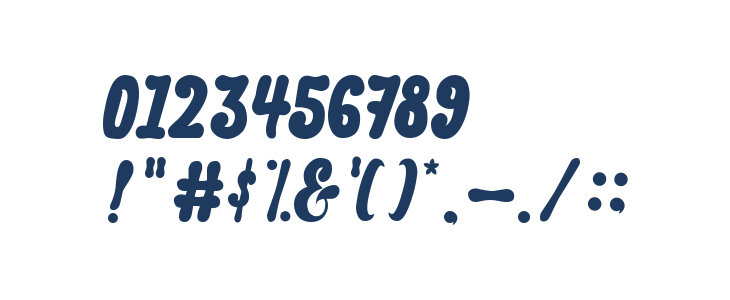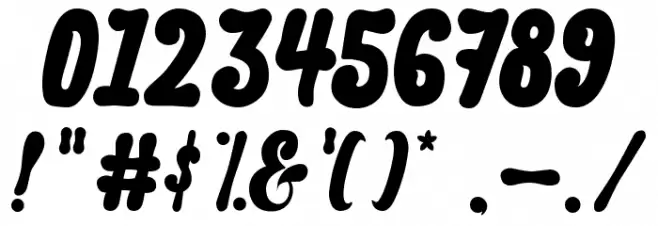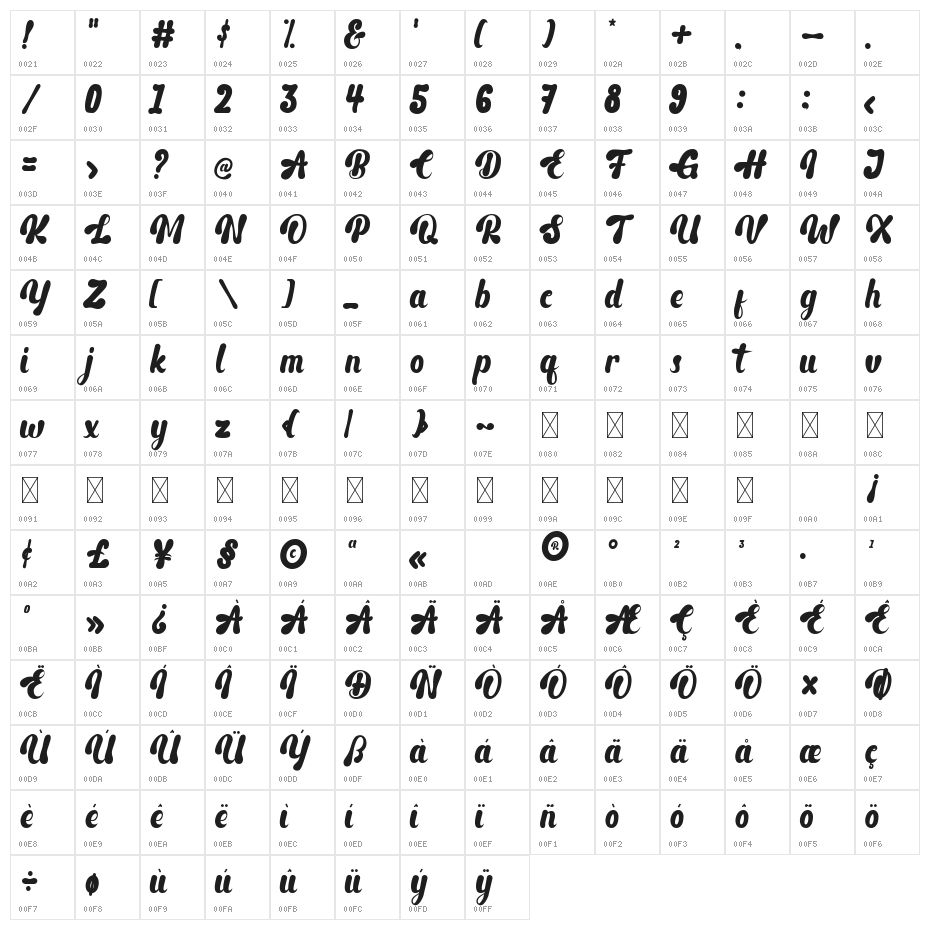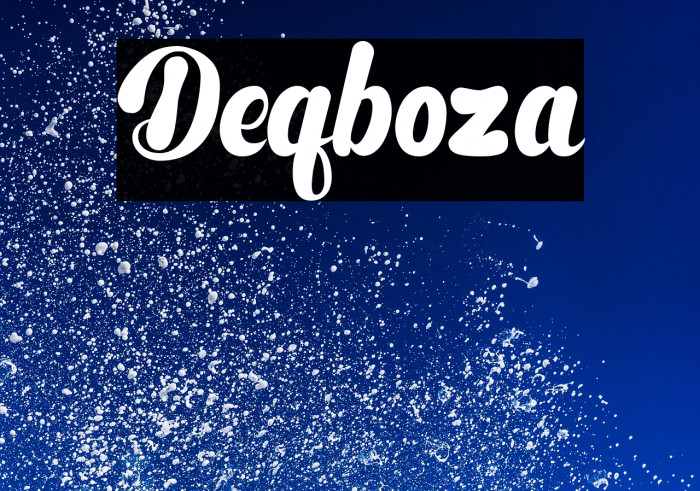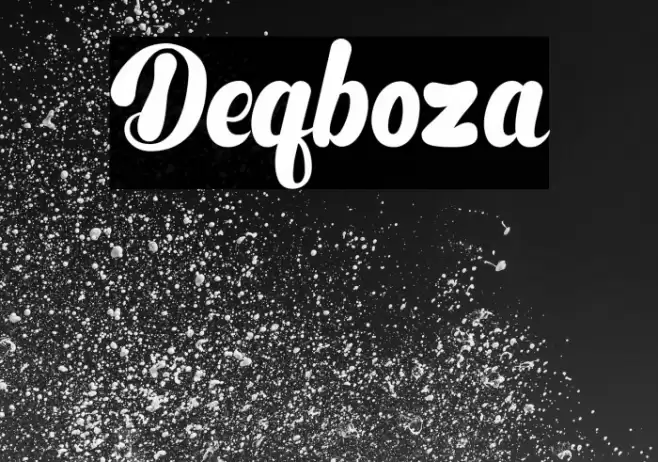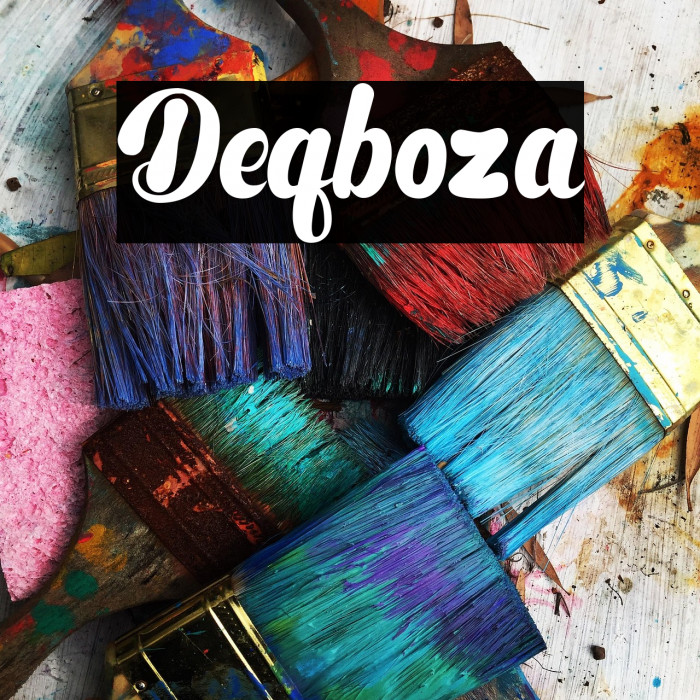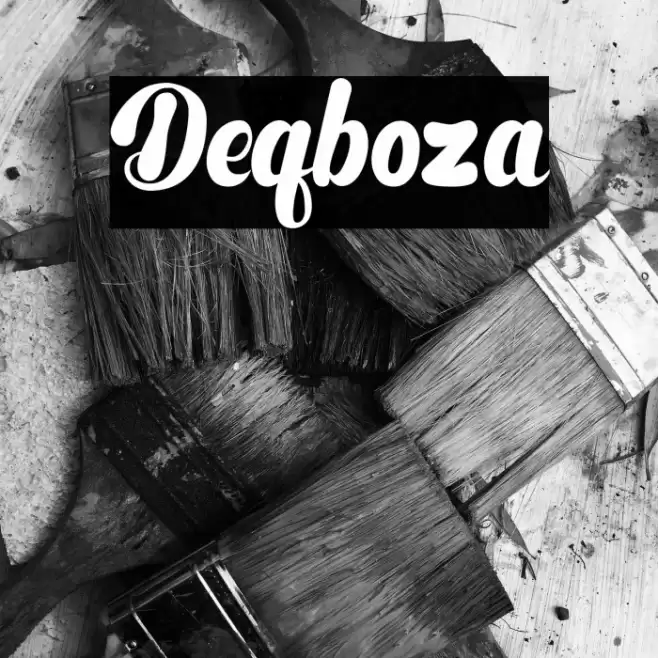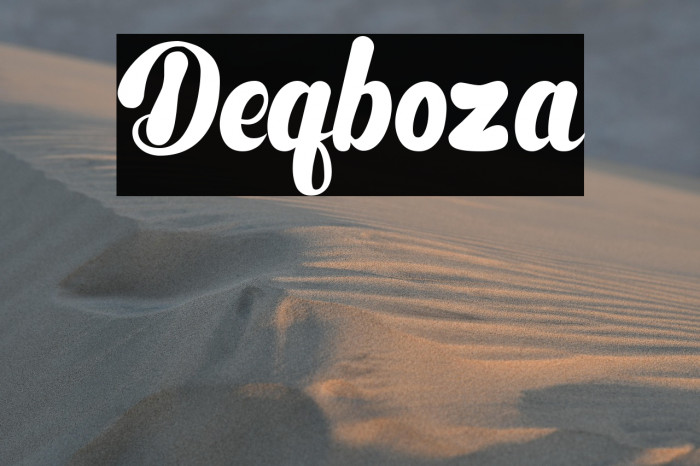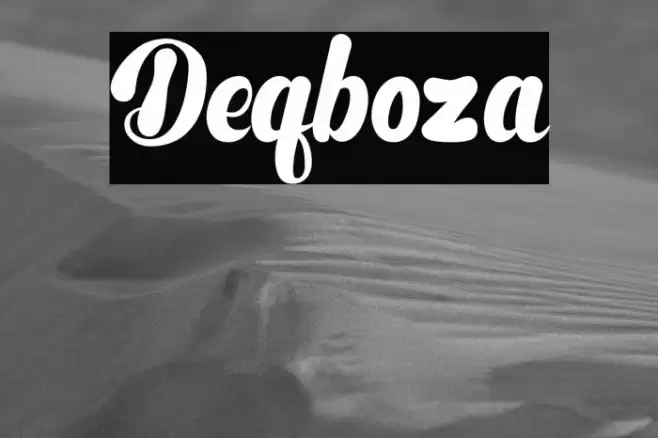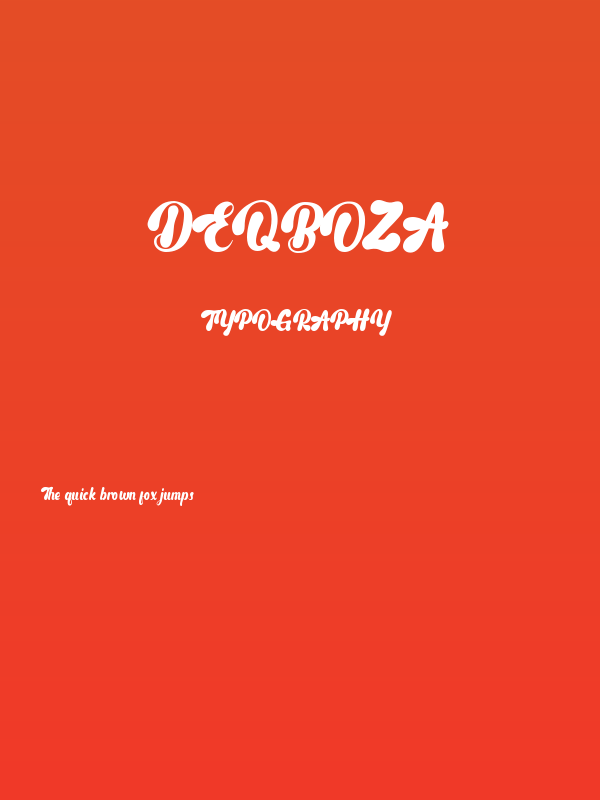
Deqboza Font
Deqboza Description
This font features a bold and playful script style with a strong presence. The characters are interconnected, creating a fluid and dynamic appearance. The strokes are thick and rounded, giving the font a friendly and approachable feel. The uppercase letters maintain a consistent height, while the lowercase letters have a slight slant, adding to the casual and informal nature of the design. The numerals are equally bold, ensuring readability and consistency across different uses. Special characters are well-integrated, maintaining the overall aesthetic. This font is ideal for projects that require a lively and engaging look.
| Proposed Projects | Perfect for branding, packaging, posters, and social media graphics that require a lively and engaging touch. |